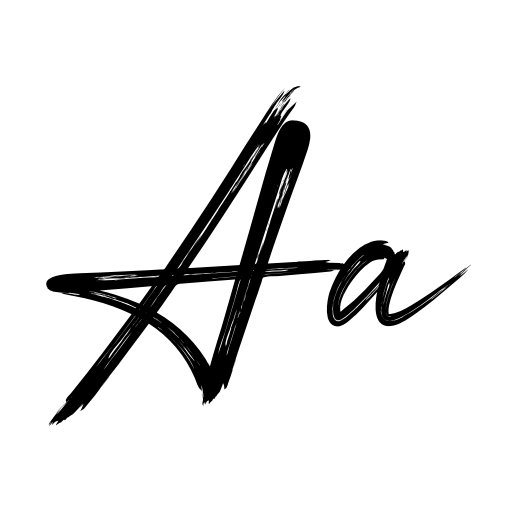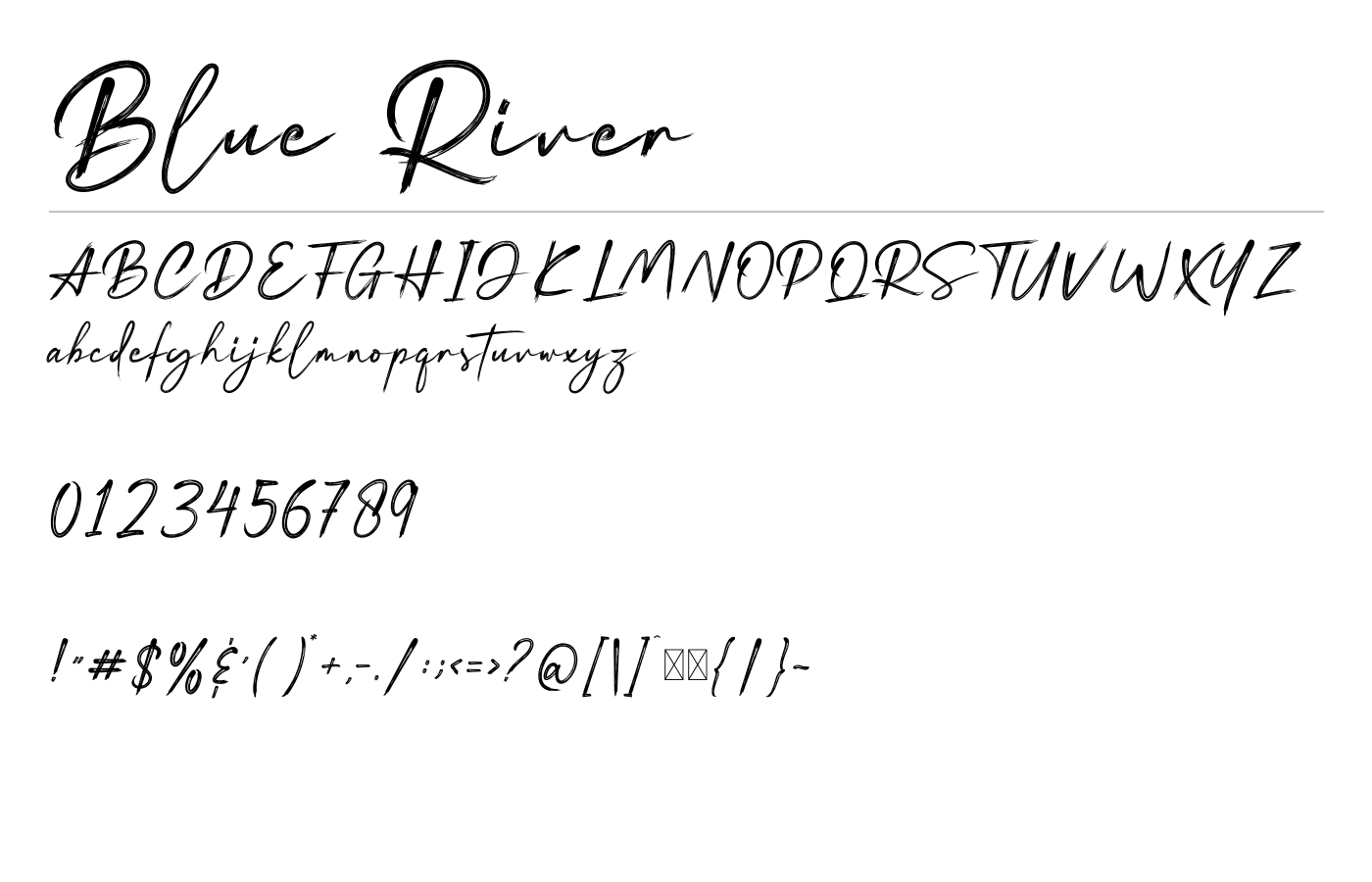
Blue River is a casual, handwritten script font characterized by its dynamic, brush-like strokes with a slightly rough texture, giving it a lively and organic feel. Its tall x-height, slender letterforms, and varying stroke weights make it perfect for creative branding, invitations, and packaging, where a personal and artistic touch is desired. This font works well in headlines and logos, adding a fresh, modern, and approachable personality to designs.
Blue River Font
About Blue River Font
| Font family | Blue River Font |